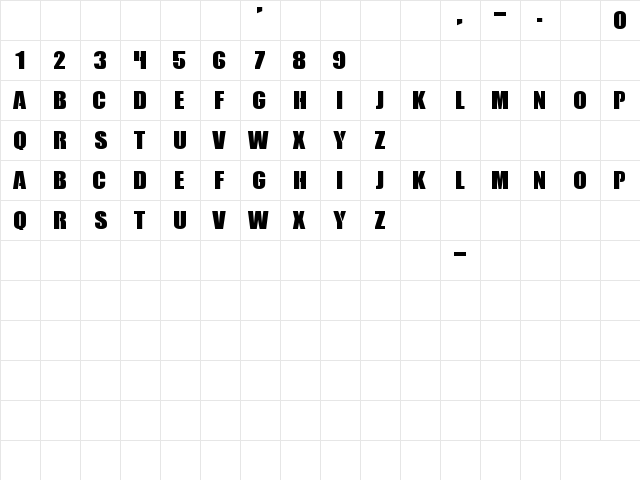
Call Of Ops Duty Regular
Design Context for Call Of Ops Duty Typeface
Call Of Ops Duty is a composed and adaptable typeface that performs quietly and consistently across a wide range of design contexts.